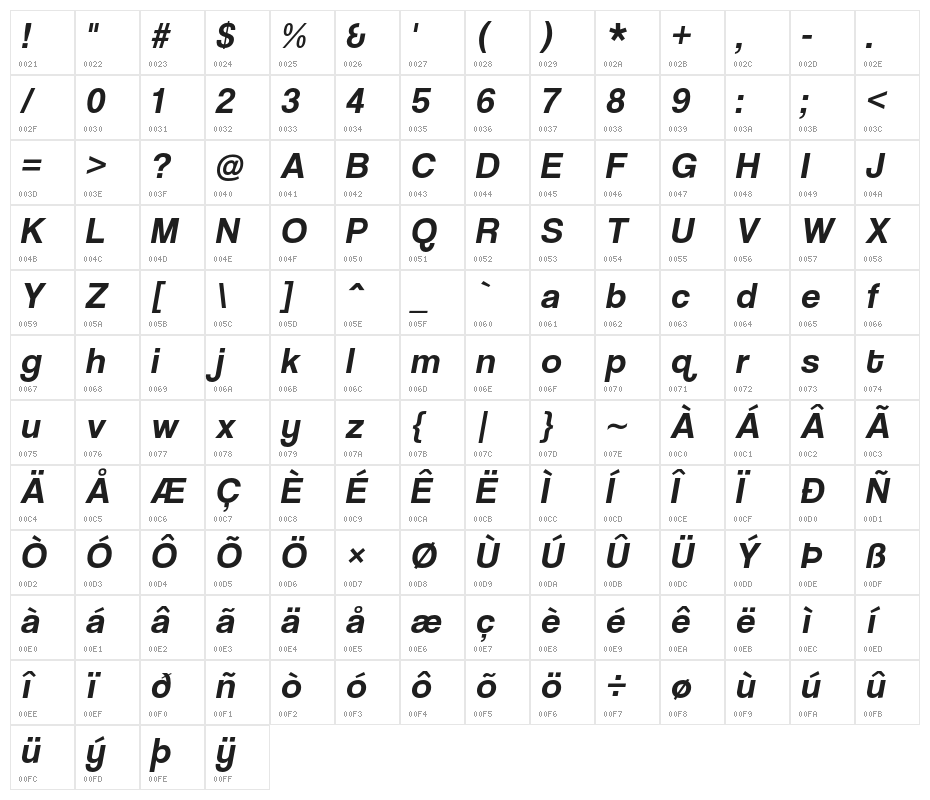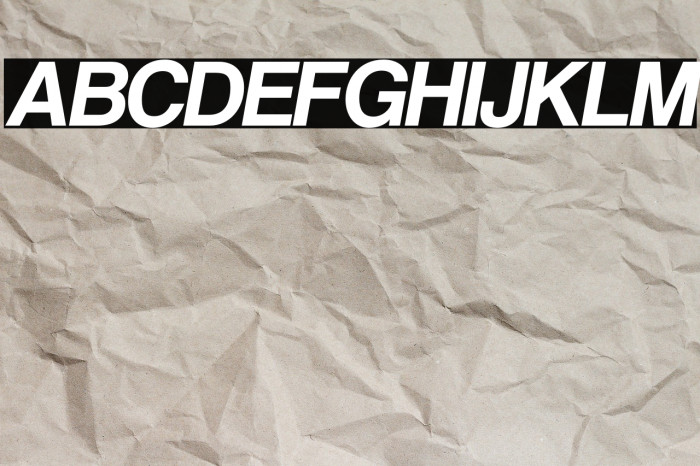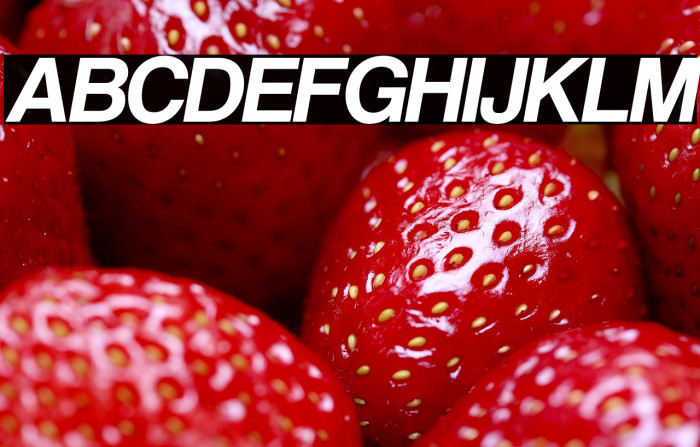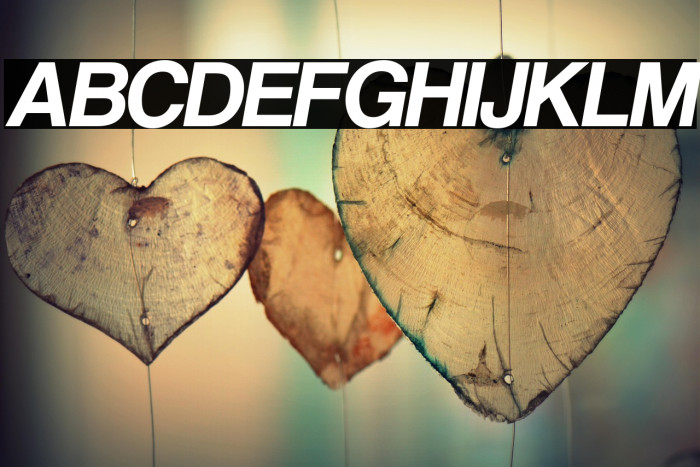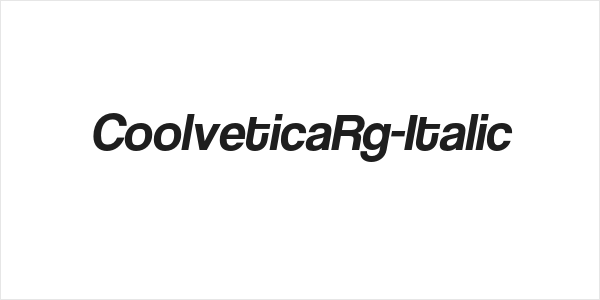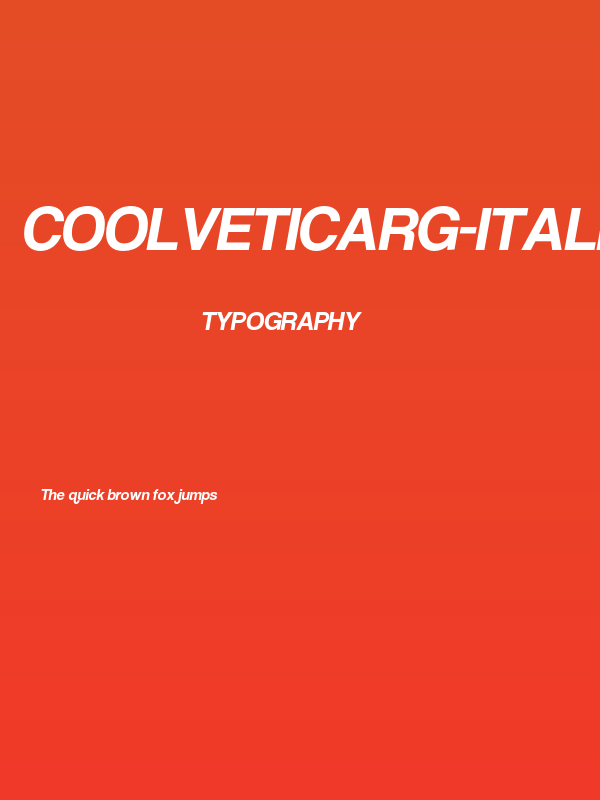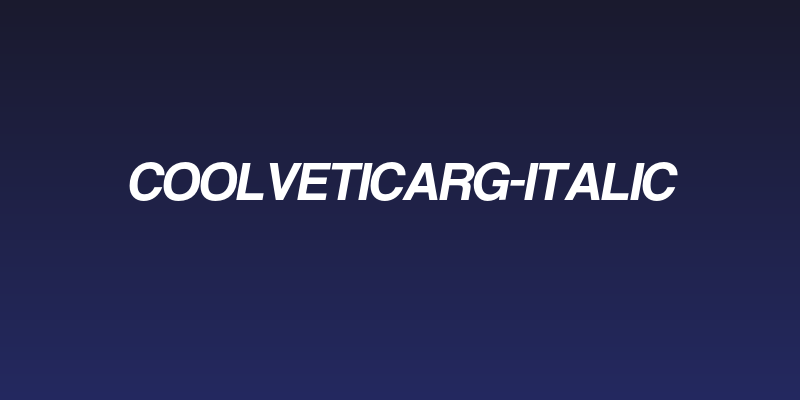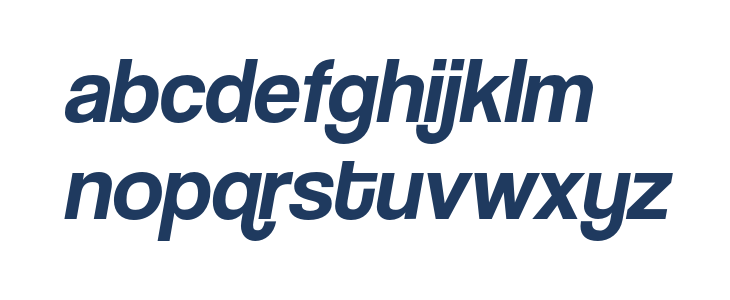
CoolveticaRg-Italic Font
CoolveticaRg-Italic Description
This font features a clean and modern sans-serif style with a distinct italic slant, giving it a dynamic and contemporary appearance. The characters are well-balanced with smooth curves and a uniform stroke width, contributing to its sleek and professional look. The uppercase and lowercase letters maintain a consistent height, while the numerals are clear and easily readable. Special characters are designed with the same attention to detail, ensuring versatility across various applications.
| Use Case | Headlines, Logos, Web design |
| Proposed Projects | Ideal for branding, advertising, and web design projects where a modern and dynamic feel is desired. |